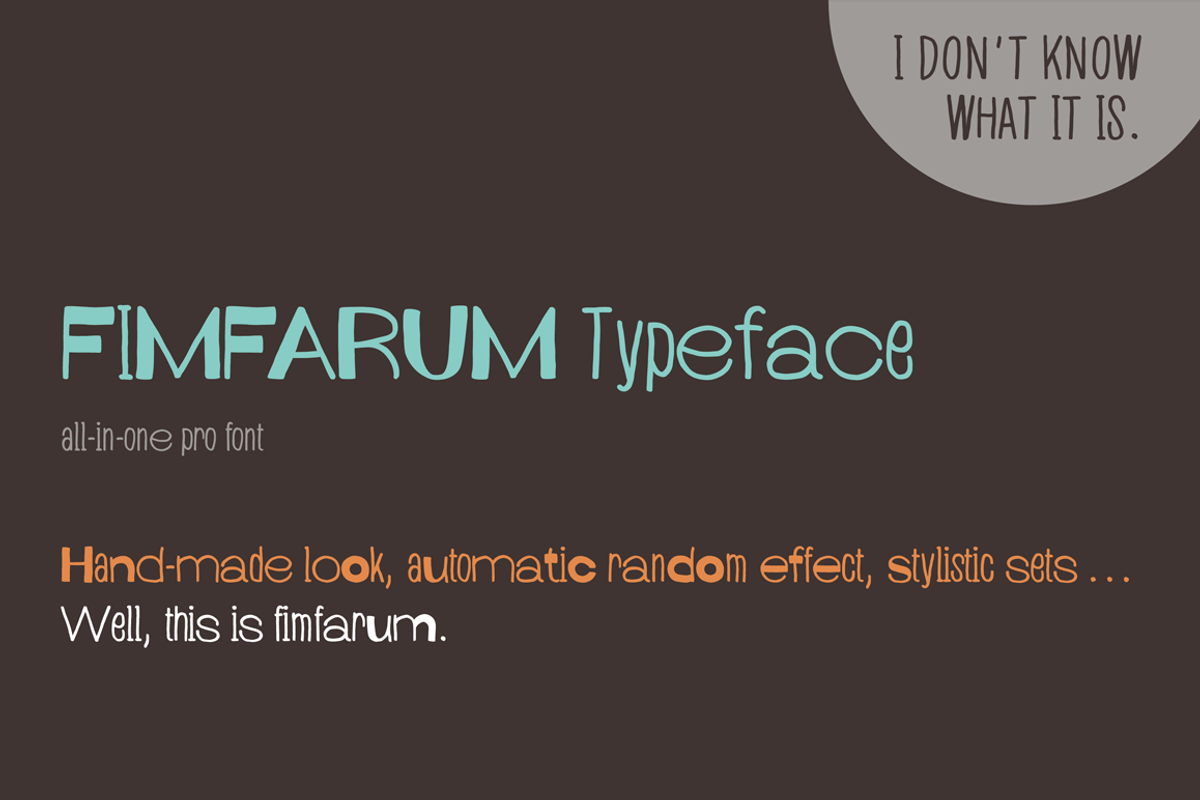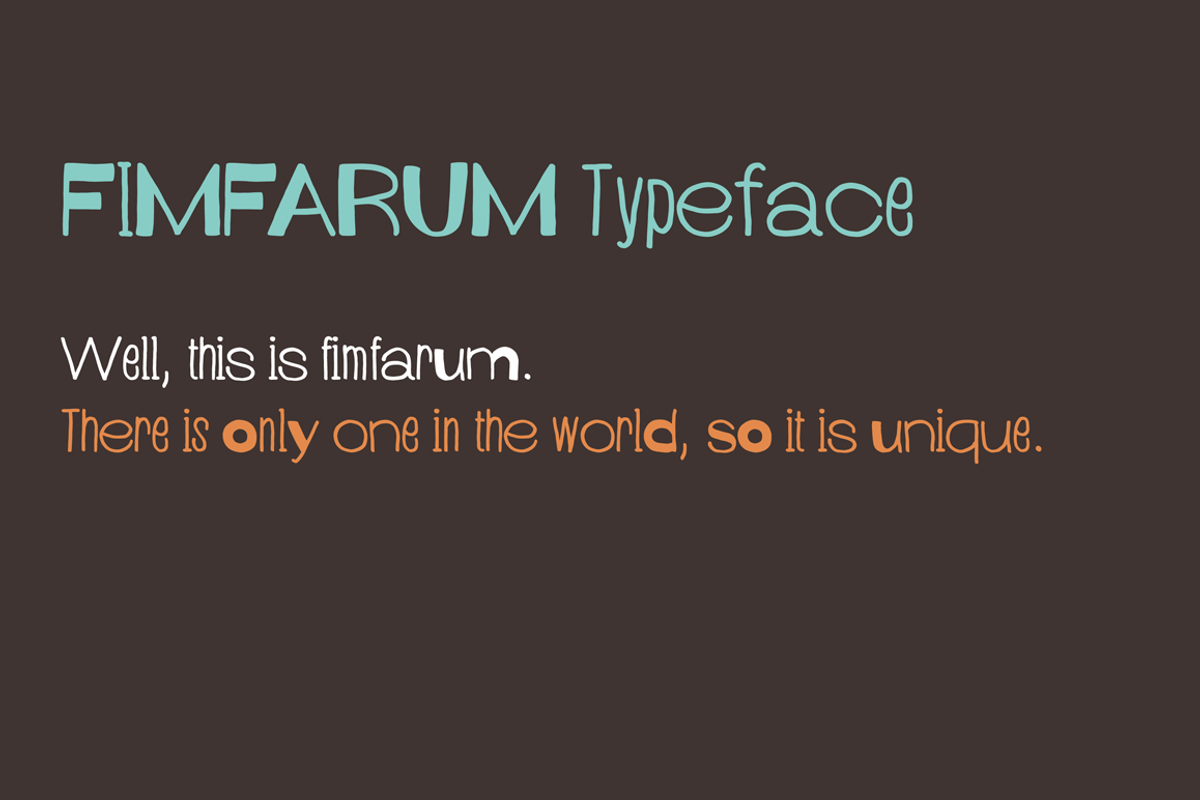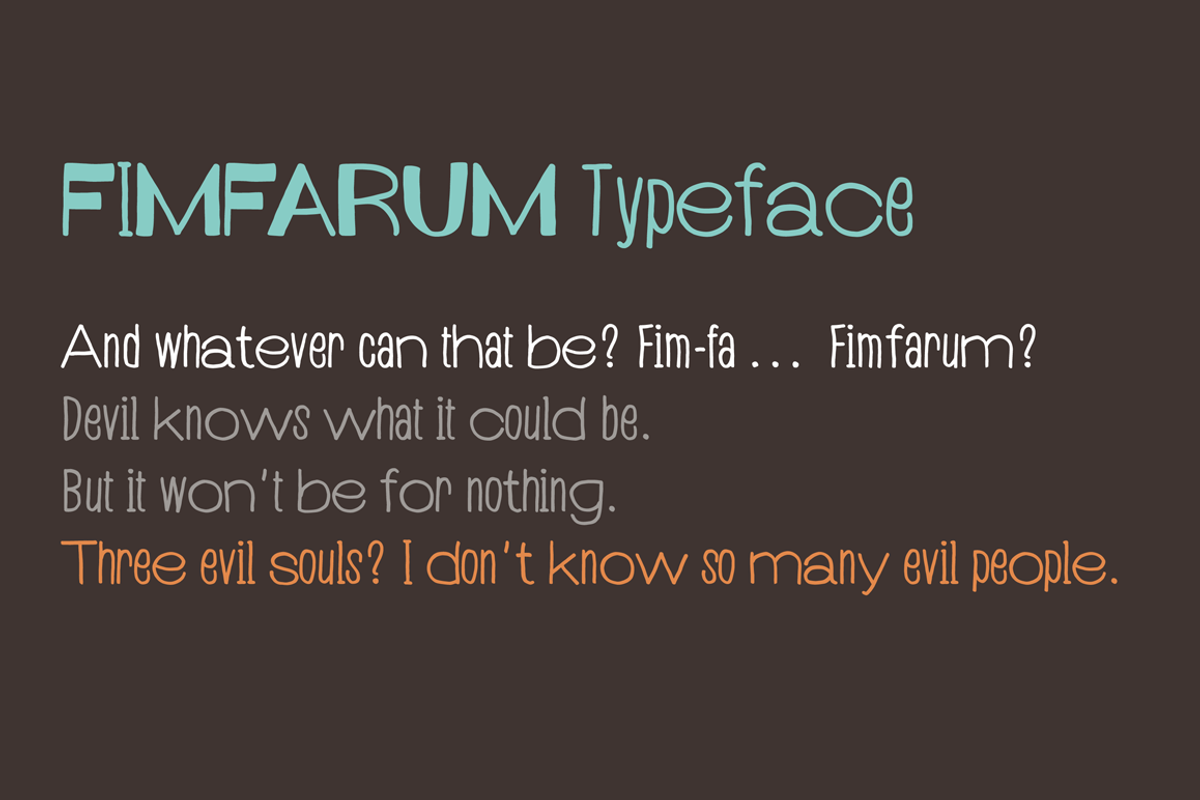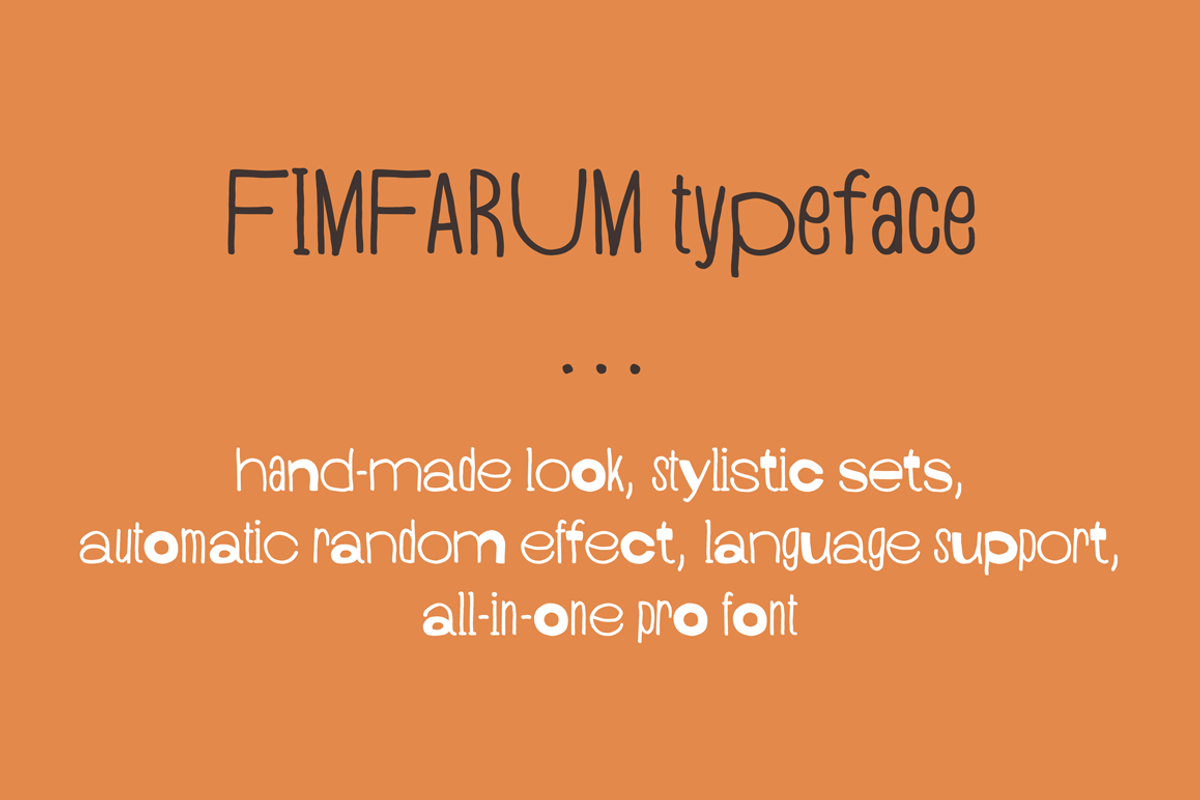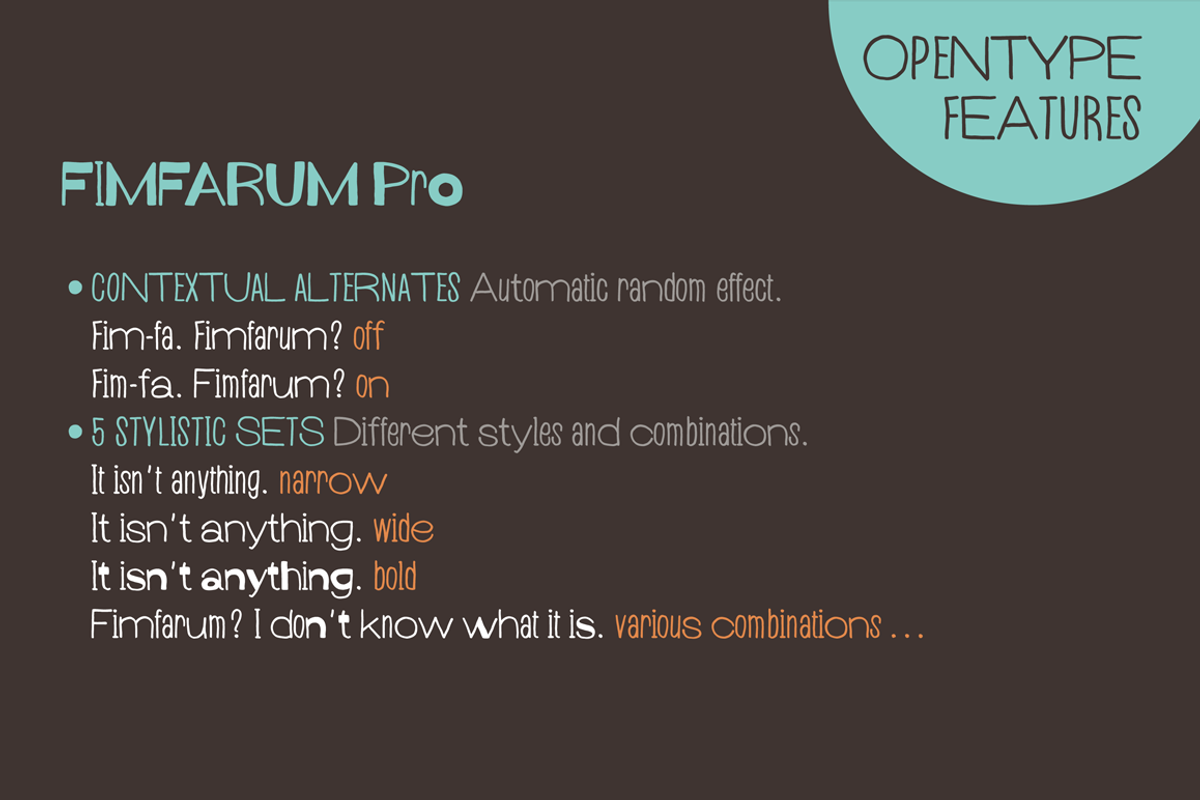
Fimfarum Pro Font
Fimfarum Pro Font by Juraj Chrastina is a font selected for branding, posters, packaging, typography.
- The OpenType contextual alternates feature can randomly mix narrow, wide and bold characters.
Why Fimfarum Pro Font is worth a look
Fimfarum Pro Font by Juraj Chrastina fits naturally into Branding, posters, packaging, typography.